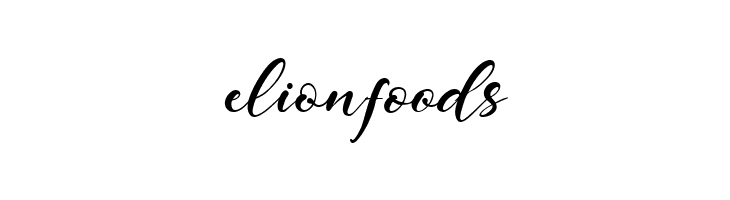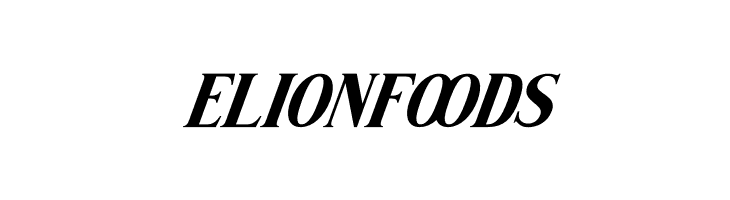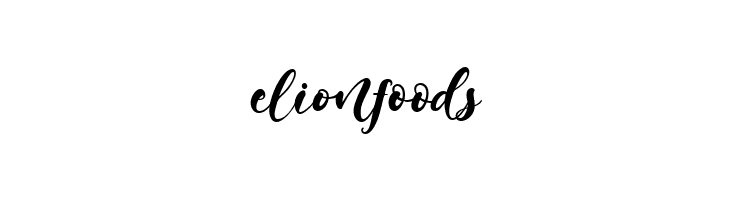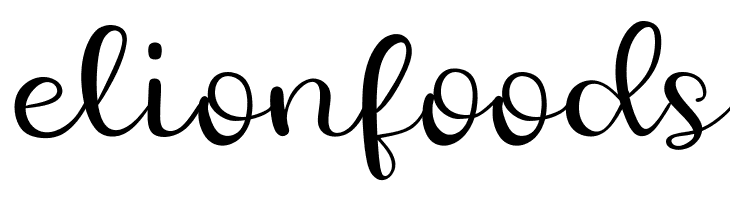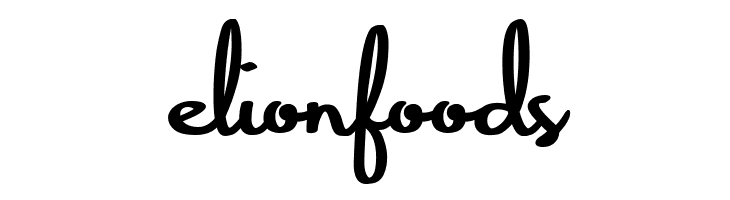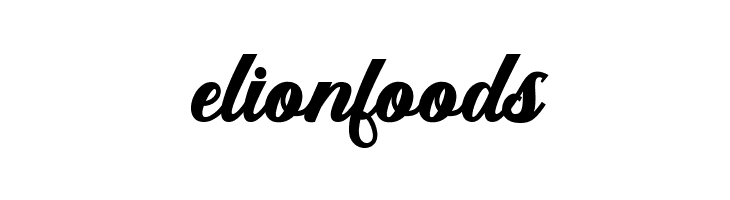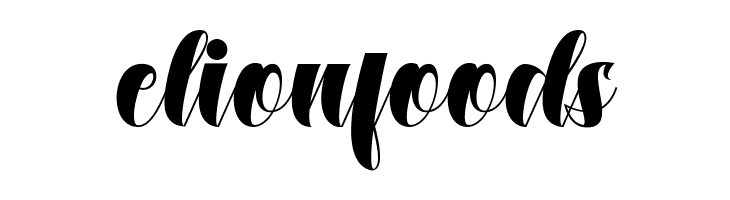
A lively and flowing script font with elegant curves and smooth transitions.
An elegant, flowing script font with ornate uppercase and smooth lowercase characters.
A dynamic and elegant italic font with high contrast and sophisticated serifs.
A sophisticated script font with flowing, connected strokes and decorative flourishes.
A modern cursive font with elegant, flowing strokes.
An elegant, flowing script font with ornate uppercase and smooth lowercase letters.
A bold, modern script font with interconnected characters and a fluid, elegant style.
A playful, handwritten script font with fluid, connected characters.
An elegant and sophisticated cursive script font with ornate uppercase and smooth lowercase letters.
A bold and elegant script font with dynamic, flowing strokes.